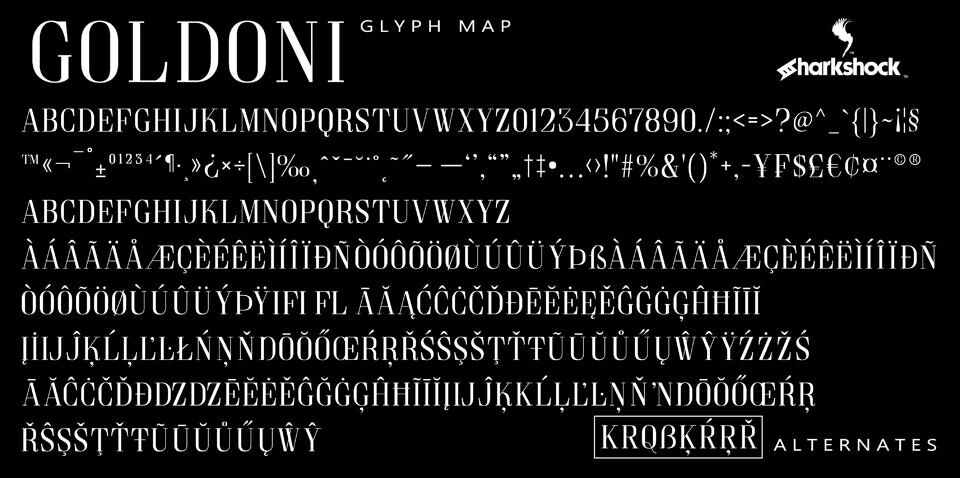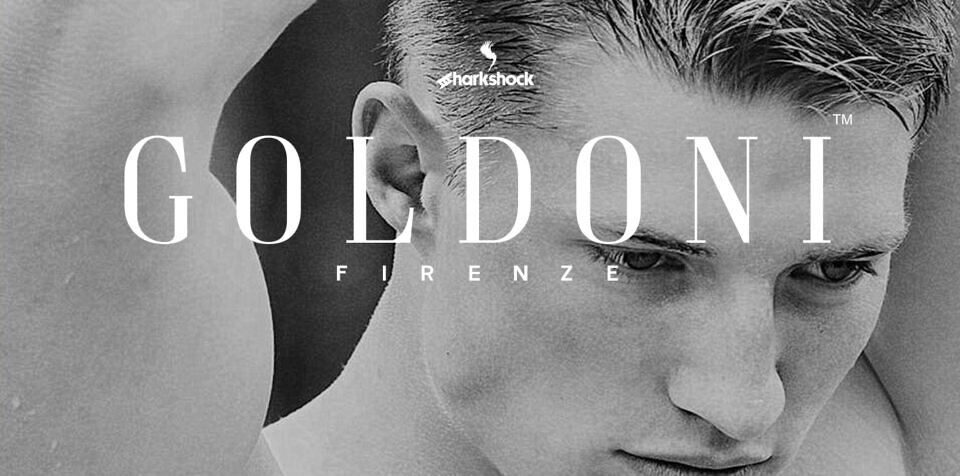
Goldoni Font
Inspired by Italian luxury brands Goldoni is a simple yet elegant titling serif with vertical emphasis. This font was designed with a classic, ultra clean look that is liberally spaced to highlight contrast between negative space and the thin nature of the characters.
Use Goldoni for a luxury logo, newspaper display, headline, or movie poster. Basic and extended latin, numbers, punctuation, European accents, diacritics, alternates, and kerning are included in the complete version.